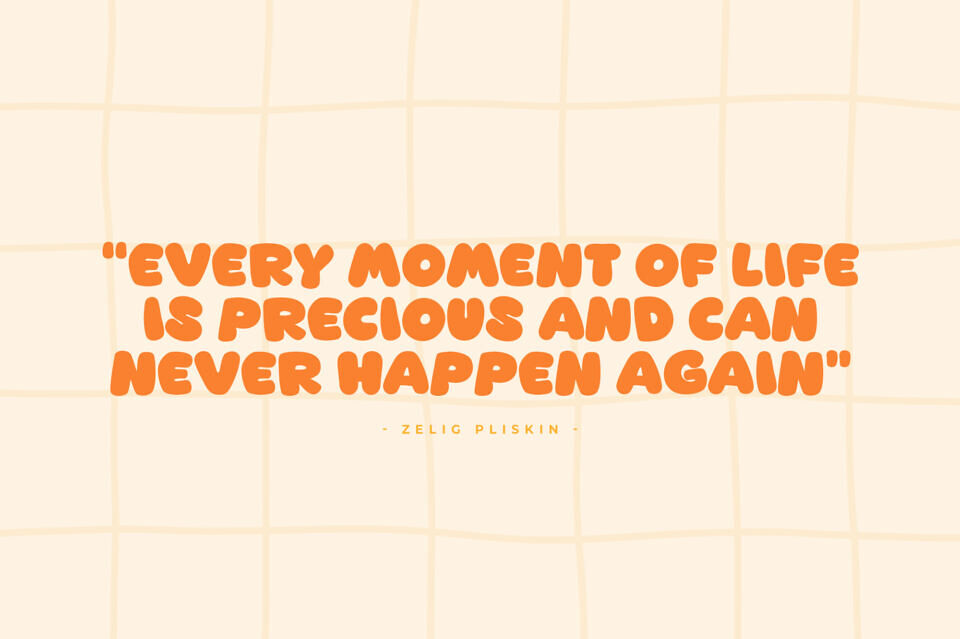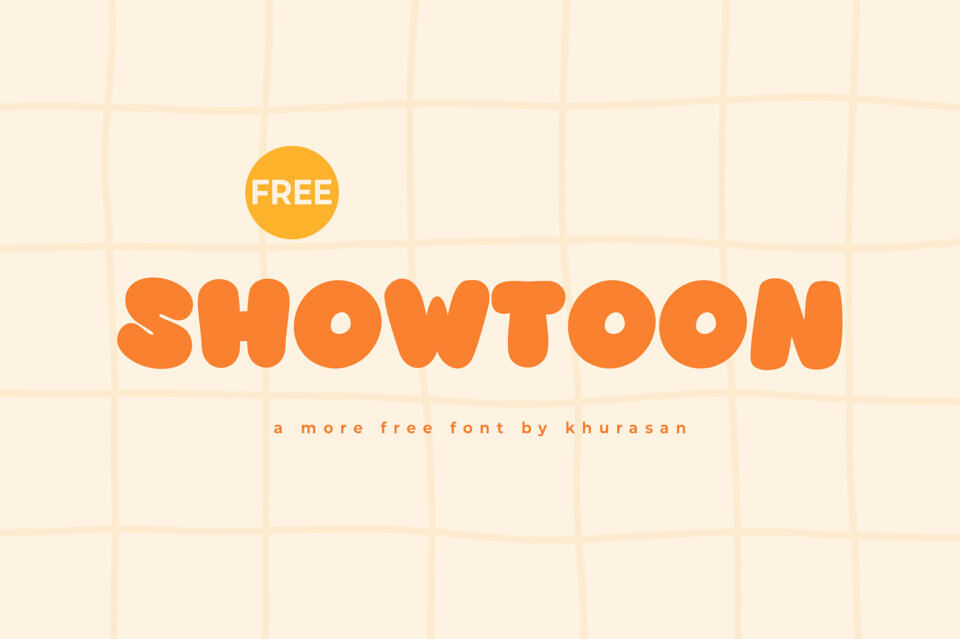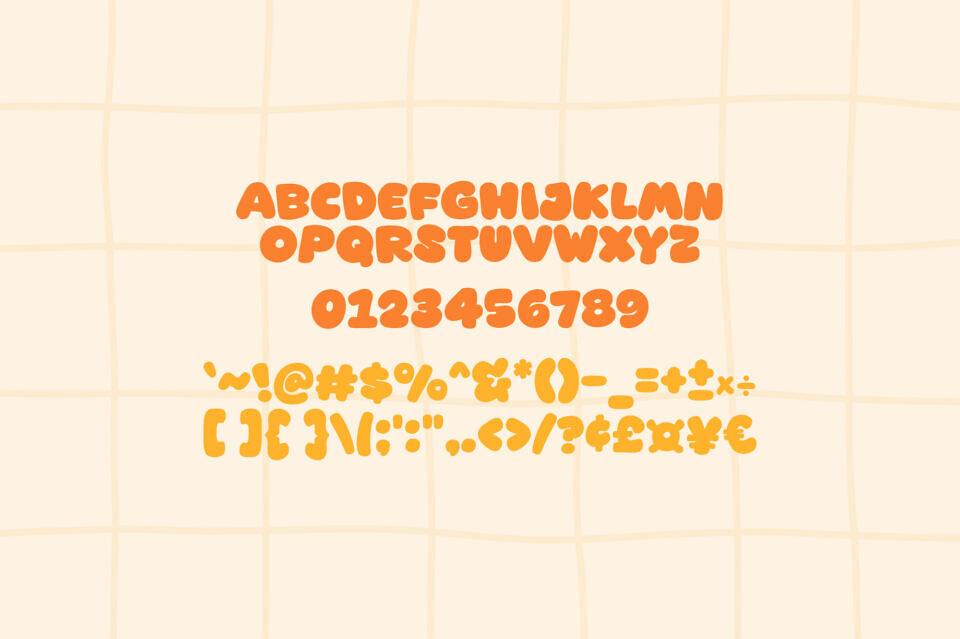
Showtoon Font
Showtoon is a modern and cute font perfect for posters, logos, magazines, book covers, banners, and many more! Get this amazing font, and use it to create lovely designs.
Designed by: Khurasan (Syafrizal)